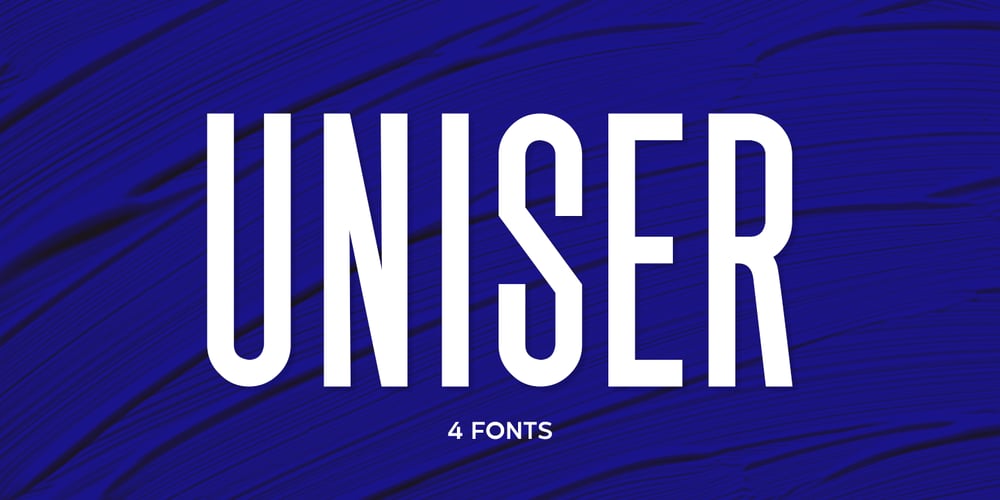
Uniser Font Family was designed by Abdul Malik Wisnu and published by Almarkha Type. Uniser contains 4 styles and family package options. Hello Everyone, Introduce our new collection, Uniser Font is inspired by famous logos of shoes and brands that have very strong characteristics, Uniser has 4 styles that allow you to get a job with satisfying results. very suitable for posters, tshirt, packaging, branding, logotype and more.Uniser font with strong and challenging nuances. very suitable for the title, typography, clothes, Poster, magazines, brochures, packaging,Websites and much more for your design needs, making your designs more modern and professionalWhat’s Included :Standard glyphsWeb FontWorks on PC & MacSimple installationsAccessible in the Adobe Illustrator, Adobe Photoshop, Adobe InDesign, even work on Microsoft Word. PUA Encoded Characters – Fully accessible without additional design software. Fonts include multilingual supportImage used : All photographs/pictures/vector used in the preview are not included, they are intended for illustration purpose only.Cheers!Thank You